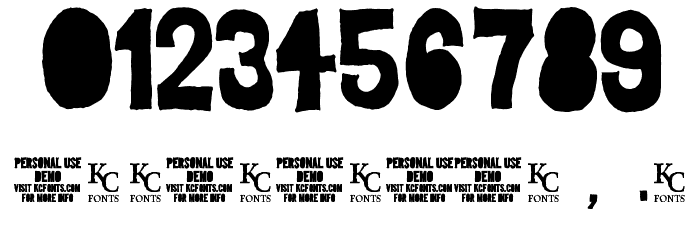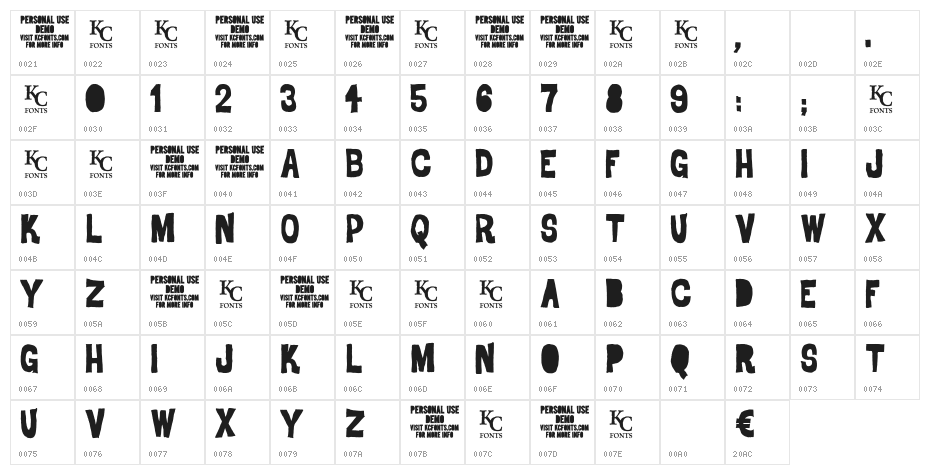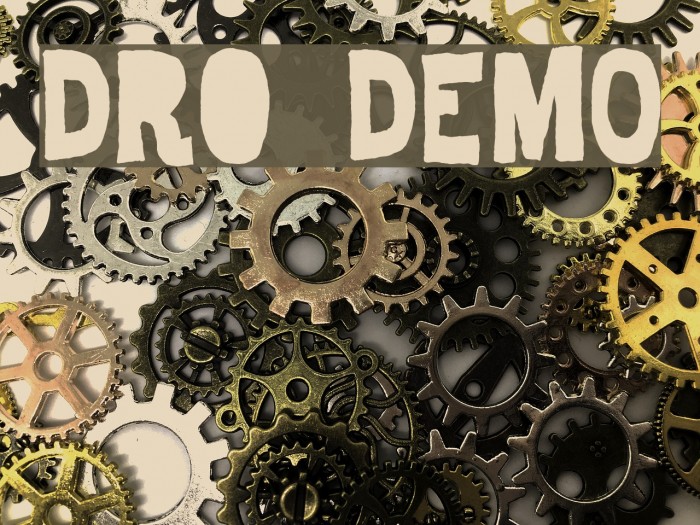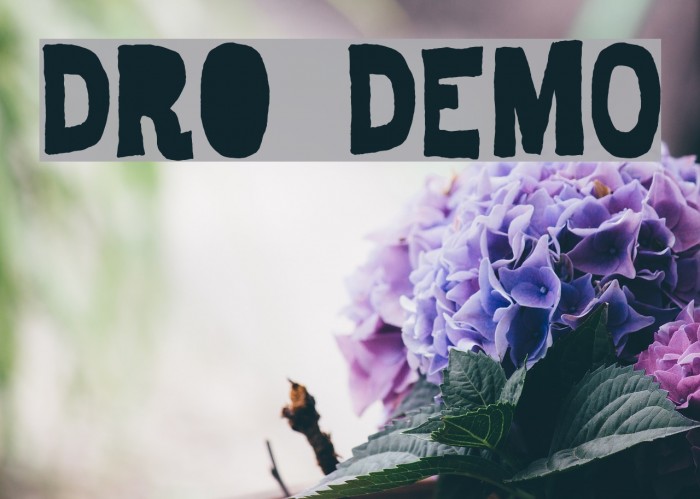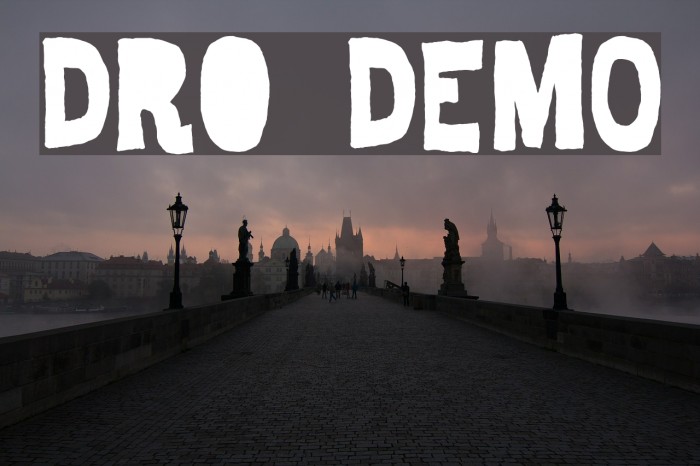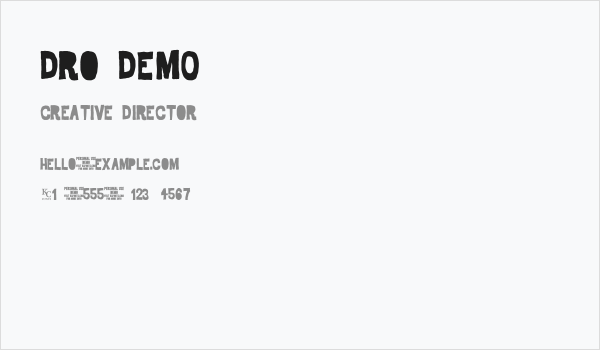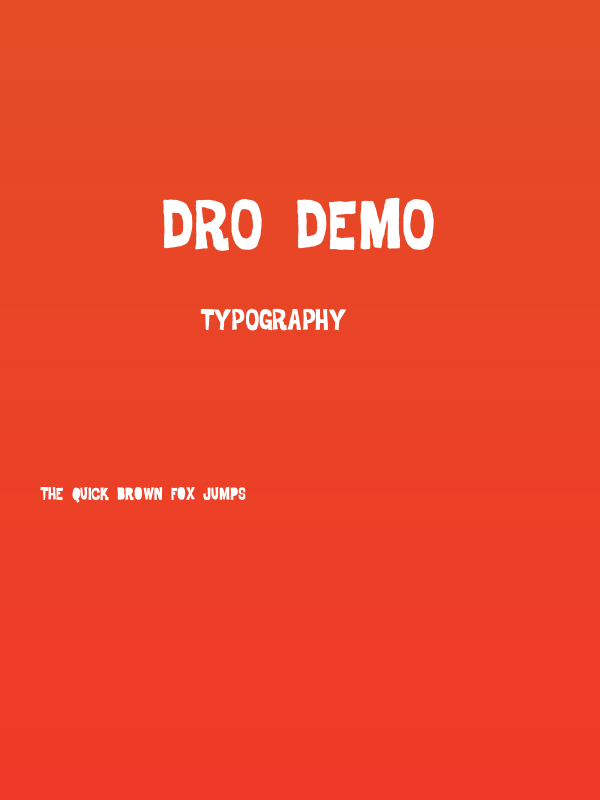
Dro DEMO Font
Dro DEMO Description
This font features a bold and expressive style, characterized by its thick, uneven strokes and a hand-drawn appearance. The letters have a playful and slightly rugged look, with irregular edges that give them a unique, artistic flair. The uppercase letters are prominent and commanding, while the numbers maintain the same boldness and style. This font's distinctive character makes it stand out, offering a creative and dynamic visual impact.